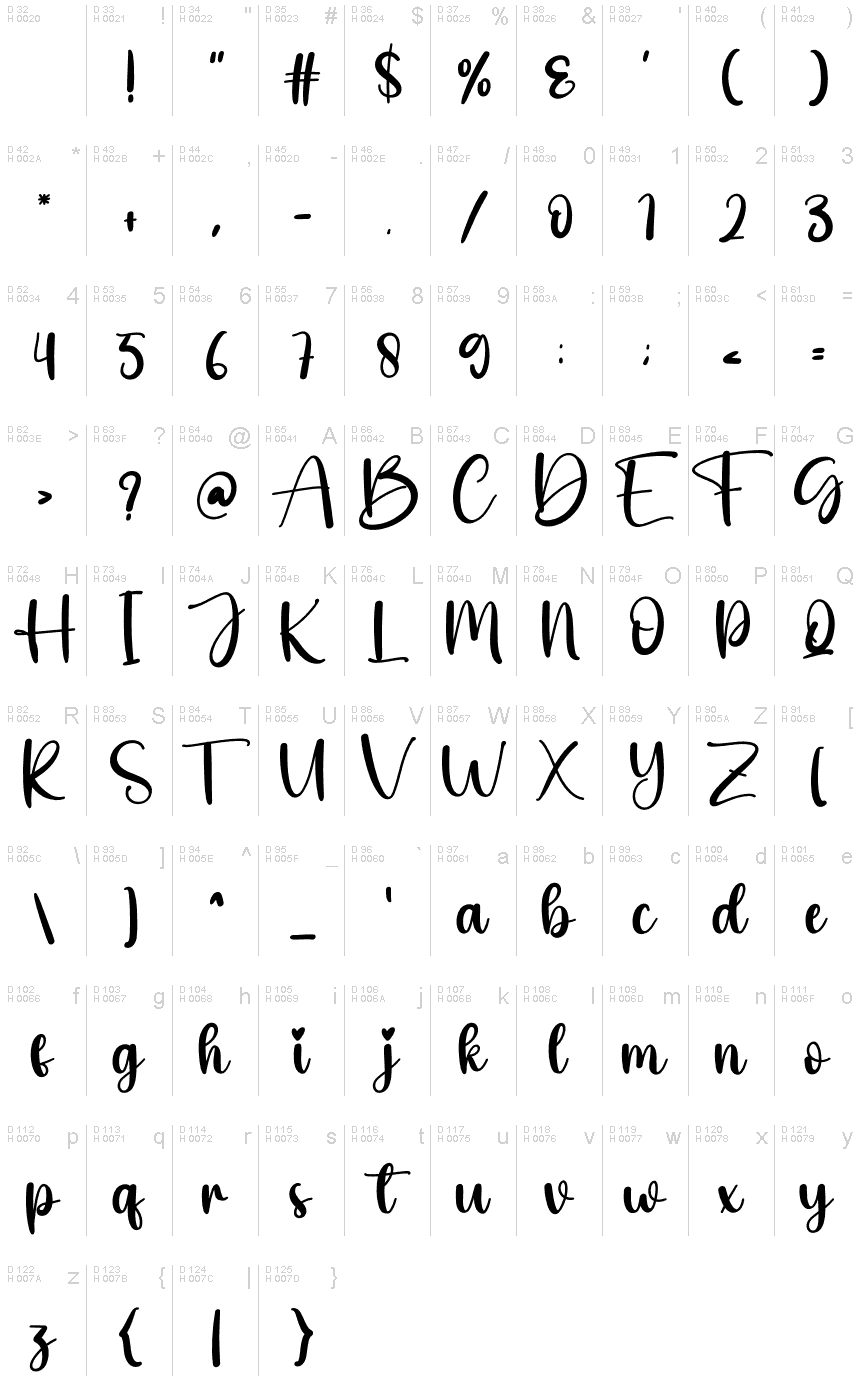
Somebody
Somebody, designed by Scratchones, is a charming handwritten font that adds a personal touch to any project. With its unique strokes and playful curves, this font exudes warmth and authenticity.
Its versatility makes it suitable for various projects such as wedding invitations, greeting cards, and branding materials. The Somebody font effortlessly captures the essence of handwritten notes, evoking a sense of nostalgia and intimacy.
Whether you're designing a cozy café menu or creating an eye-catching logo, Somebody will infuse your work with character and charisma.
Its versatility makes it suitable for various projects such as wedding invitations, greeting cards, and branding materials. The Somebody font effortlessly captures the essence of handwritten notes, evoking a sense of nostalgia and intimacy.
Whether you're designing a cozy café menu or creating an eye-catching logo, Somebody will infuse your work with character and charisma.